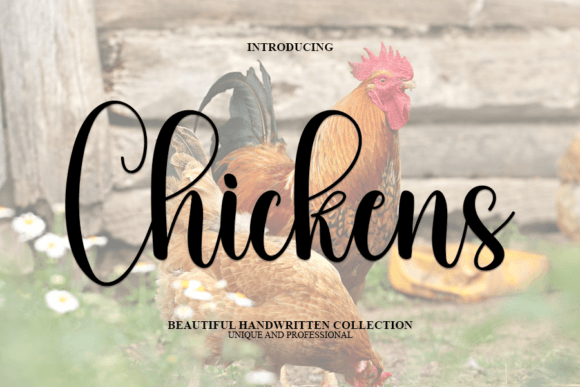
Introducing Chickens Font: A Delicate Handwritten Font for Unique Designs
In the world of typography, fonts play a crucial role in conveying the tone and personality of a brand or design. Among the numerous fonts available, Chickens Font stands out as a delicate handwritten font carefully crafted for a cool and unique design. This font is perfect for creative projects that require a personal touch, such as writing letters, invitations, food products, titles, and more.
What is Chickens Font?
Chickens Font is a beautifully designed handwritten font that exudes a sense of elegance and sophistication. Its delicate strokes and unique letterforms make it an ideal choice for designers looking to add a personal touch to their work. The font is carefully crafted to ensure that it is legible and easy to read, making it suitable for a wide range of applications.
Key Features of Chickens Font
- Delicate Handwritten Design: Chickens Font boasts a delicate handwritten design that is perfect for creating unique and eye-catching designs.
- Cool and Unique Design: The font’s cool and unique design makes it stand out from other fonts, ensuring that your designs grab attention.
- Legible and Easy to Read: Despite its delicate design, Chickens Font is legible and easy to read, making it suitable for body text and headings.
- Versatile: The font can be used for a wide range of applications, including letters, invitations, food products, titles, and more.
Uses of Chickens Font
Chickens Font is a versatile font that can be used for various design projects. Here are some of the ways you can use this font:
- Wedding Invitations: The font’s elegant design makes it perfect for wedding invitations, adding a touch of sophistication and romance to your wedding stationery.
- Food Blogging: If you’re a food blogger, Chickens Font can be used to create beautiful headings and titles for your recipes, adding a personal touch to your content.
- Product Labels: The font’s unique design makes it suitable for product labels, especially for food products, cosmetics, and other consumer goods.
- Social Media Graphics: Chickens Font can be used to create eye-catching social media graphics, including Facebook posts, Instagram stories, and Twitter headers.
- Logos and Branding: The font’s unique design makes it suitable for logos and branding, especially for businesses that want to convey a sense of elegance and sophistication.
Benefits of Using Chickens Font
Using Chickens Font offers several benefits, including:
- Unique Designs: The font’s unique design ensures that your designs stand out from the crowd, grabbing attention and leaving a lasting impression.
- Emotional Connection: The font’s elegant design helps create an emotional connection with your audience, making them more likely to engage with your content.
- Flexibility: Chickens Font is versatile and can be used for various design projects, making it a valuable addition to your font library.
- Easy to Read: The font’s legibility ensures that your message is conveyed clearly, making it easy for your audience to understand and engage with your content.
Tips for Using Chickens Font
Here are some tips for using Chickens Font effectively:
- Use it Sparingly: While Chickens Font is beautiful, it’s best to use it sparingly to avoid overwhelming your design.
- Pair it with Other Fonts: Pairing Chickens Font with other fonts can create a unique and visually appealing design.
- Adjust Font Size: Adjusting the font size can help create visual hierarchy and emphasize important information.
- Experiment with Colors: Experimenting with different colors can help create a design that reflects your brand’s personality and tone.
Chickens Font is a delicate handwritten font carefully crafted for a cool and unique design. Its versatility, legibility, and elegance make it an ideal choice for designers looking to add a personal touch to their work. With its wide range of applications, from wedding invitations to social media graphics, Chickens Font is a valuable addition to any font library.